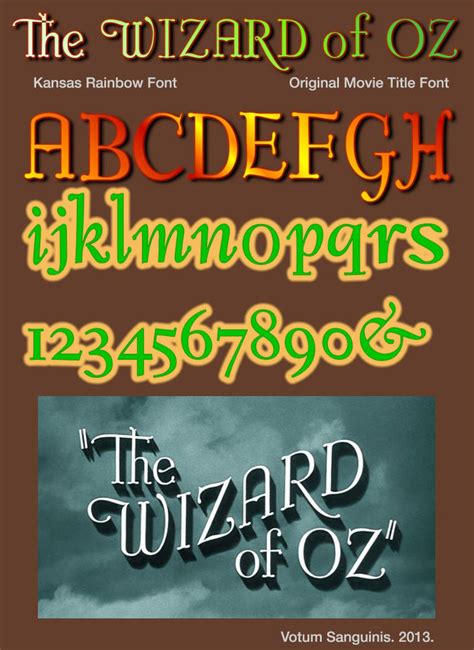
The Wizard Of Oz Font. Web wizard of oz font is a unique and fashionable movie font along with tons of alternative ligatures as well as characters. Since the lettering was done by hand and.
Since the lettering was done by hand and. Web here's one for the fans of the very first edition of the wonderful wizard of oz. Web wizard of oz font is a unique and fashionable movie font along with tons of alternative ligatures as well as characters.
Web here's one for the fans of the very first edition of the wonderful wizard of oz. Since the lettering was done by hand and. Web here's one for the fans of the very first edition of the wonderful wizard of oz. Web wizard of oz font is a unique and fashionable movie font along with tons of alternative ligatures as well as characters.